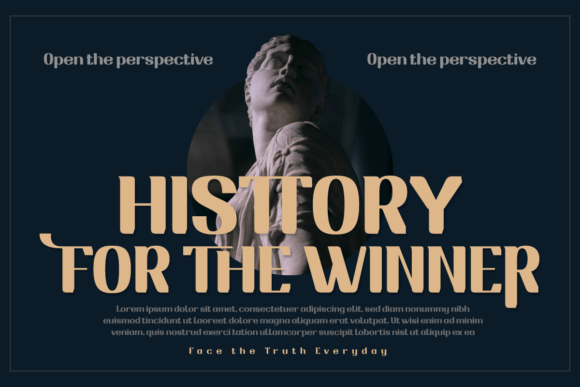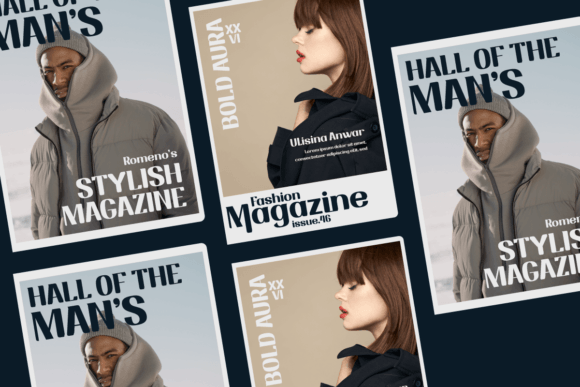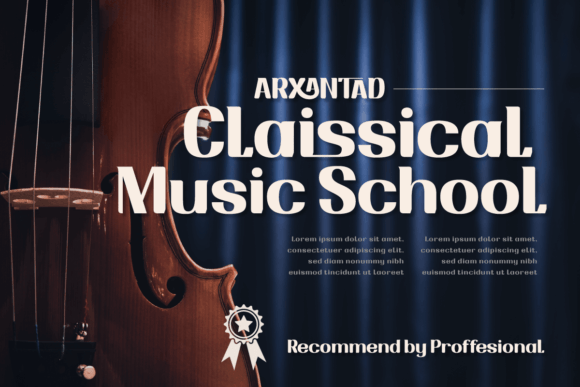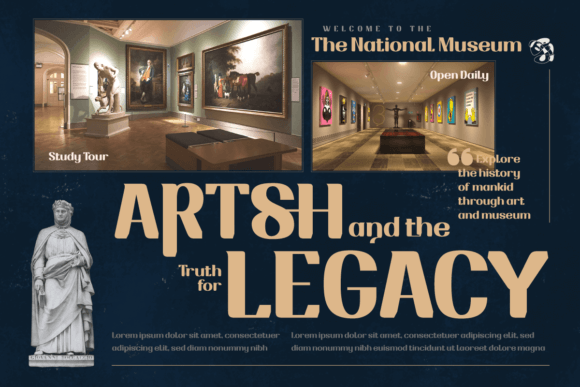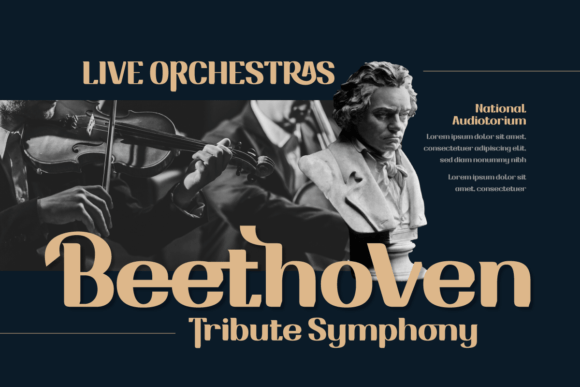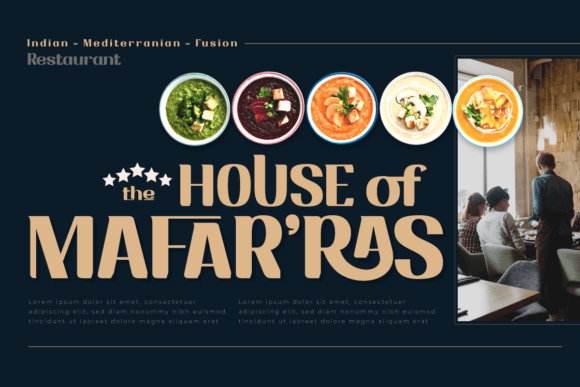
Discover the Timeless Elegance of Draftbink Font
Are you looking for a font that exudes classic elegance and sophistication? Look no further than the Draftbink font. With its compelling classic serif theme, this font is the perfect choice for creating projects that require an elegant touch of classic modernism. In this article, we’ll explore the features and benefits of Draftbink, and why it’s the ideal font for designers and crafters who want to add a touch of timeless elegance to their work.
A Classic Serif Font with a Modern Twist
Draftbink is a carefully crafted font that combines the classic elegance of traditional serif fonts with the modernity of contemporary typography. Its distinctive classic serif characteristics give your design an elegant and bold impression, making it perfect for projects that require a touch of sophistication. Whether you’re working on a branding project, a website, or a print design, Draftbink is the perfect choice for creating a lasting impression.
Powerful Features for Unlimited Flexibility and Creativity
Draftbink brings powerful features to the table, giving you unlimited flexibility and creativity when it comes to designing your project. The font features ligatures and alternate characters, which allow you to combine interesting characters and create unique and attractive typography compositions. With Draftbink, you can experiment with different typography styles and create a truly unique look that sets your project apart from the rest.
Stunning Beauty and Sharpness
Each letter in the Draftbink font is carefully designed to display stunning beauty and sharpness. The font’s classic serif characteristics are meticulously crafted to give your design an elegant and refined look. Whether you’re working on a digital project or a print design, Draftbink’s sharp and clean lines ensure that your text looks crisp and professional.
Draftbink is PUA encoded, which means you can access all of the amazing glyphs and ligatures with ease. This feature makes it easy to use the font’s advanced typography features, even if you’re not a typography expert. With Draftbink, you can easily access the font’s ligatures, alternate characters, and other features to create unique and complex typography compositions.
Why Choose Draftbink?
So why choose Draftbink for your next project? Here are just a few reasons why this font stands out from the rest:
- Classic elegance: Draftbink’s classic serif theme gives your design a timeless and sophisticated look that’s perfect for projects that require an elegant touch.
- Unlimited flexibility and creativity: The font’s powerful features, including ligatures and alternate characters, give you the flexibility to create unique and complex typography compositions.
- Stunning beauty and sharpness: Each letter in the Draftbink font is carefully designed to display stunning beauty and sharpness, making it perfect for digital and print designs.
- Easy to use: Draftbink is PUA encoded, making it easy to access the font’s advanced typography features.
In conclusion, Draftbink is a versatile and elegant font that’s perfect for creating projects with a classic modernism feel. With its powerful features, stunning beauty and sharpness, and easy-to-use design, this font is a must-have for designers and crafters who want to add a touch of sophistication to their work. Whether you’re working on a branding project, a website, or a print design, Draftbink is the perfect choice for creating a lasting impression.